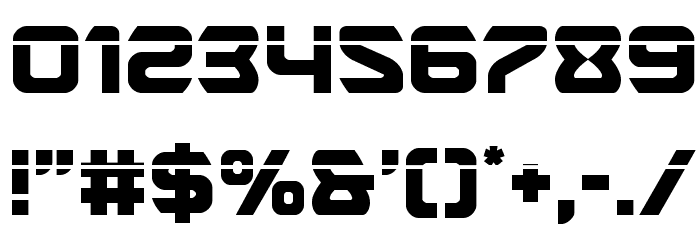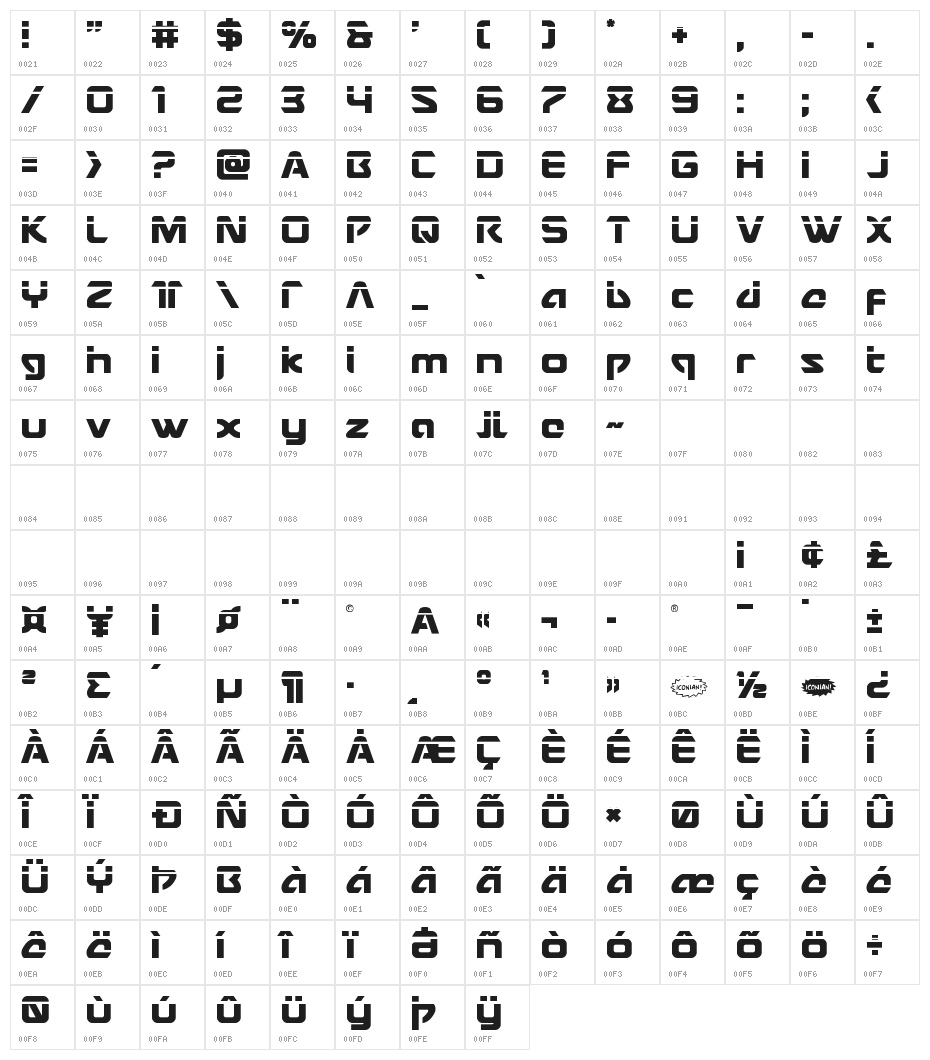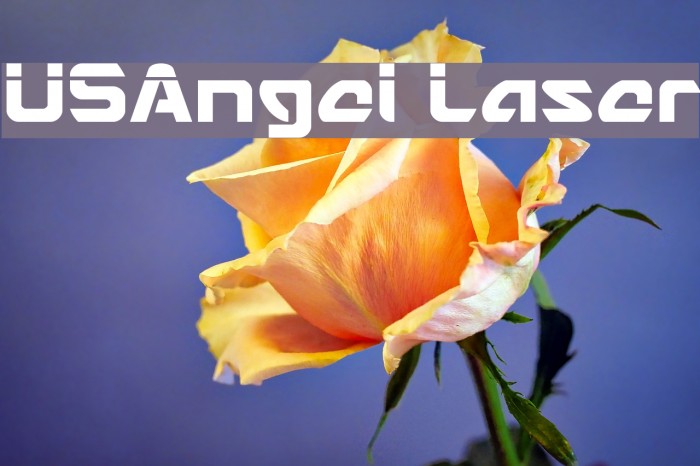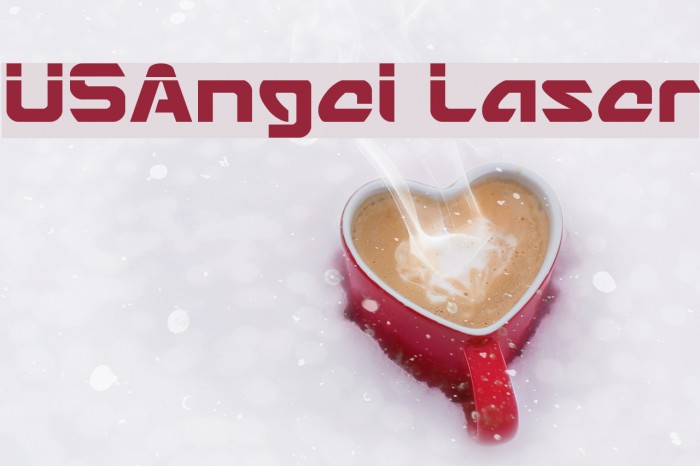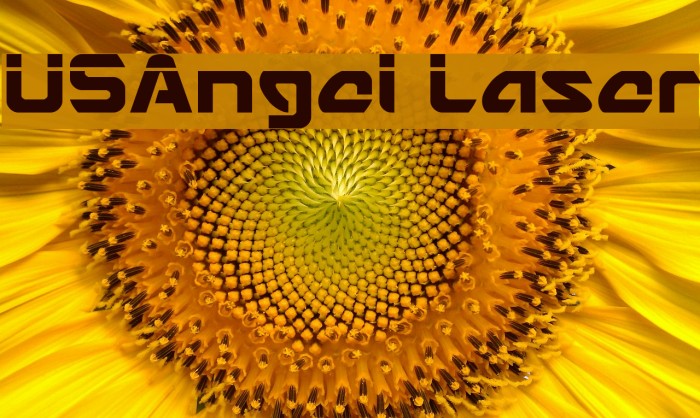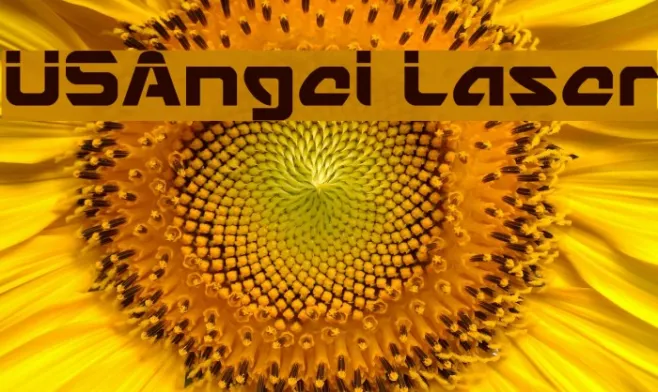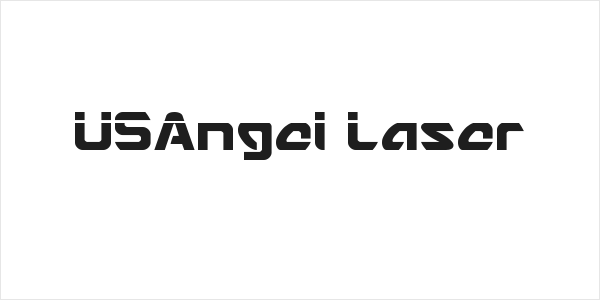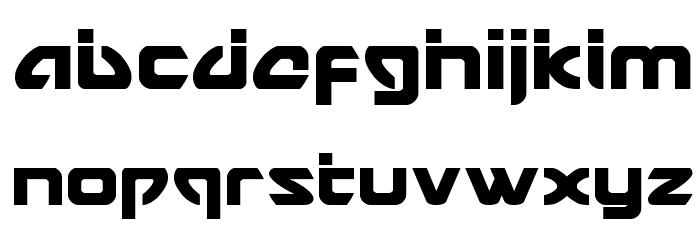
USAngel Laser Font
USAngel Laser Description
This font features a bold and futuristic design, characterized by its geometric and angular shapes. The letters have a distinct, sharp-edged appearance, giving it a modern and technological feel. The uppercase and lowercase letters maintain a consistent style, with uniform stroke thickness and a slightly condensed form. The numerals and special characters follow the same design principles, ensuring a cohesive look across all characters. The font's unique style makes it stand out, suitable for projects that require a strong visual impact.
Proposed ProjectsIdeal for technology branding, sci-fi themed designs, video game titles, and modern advertising.